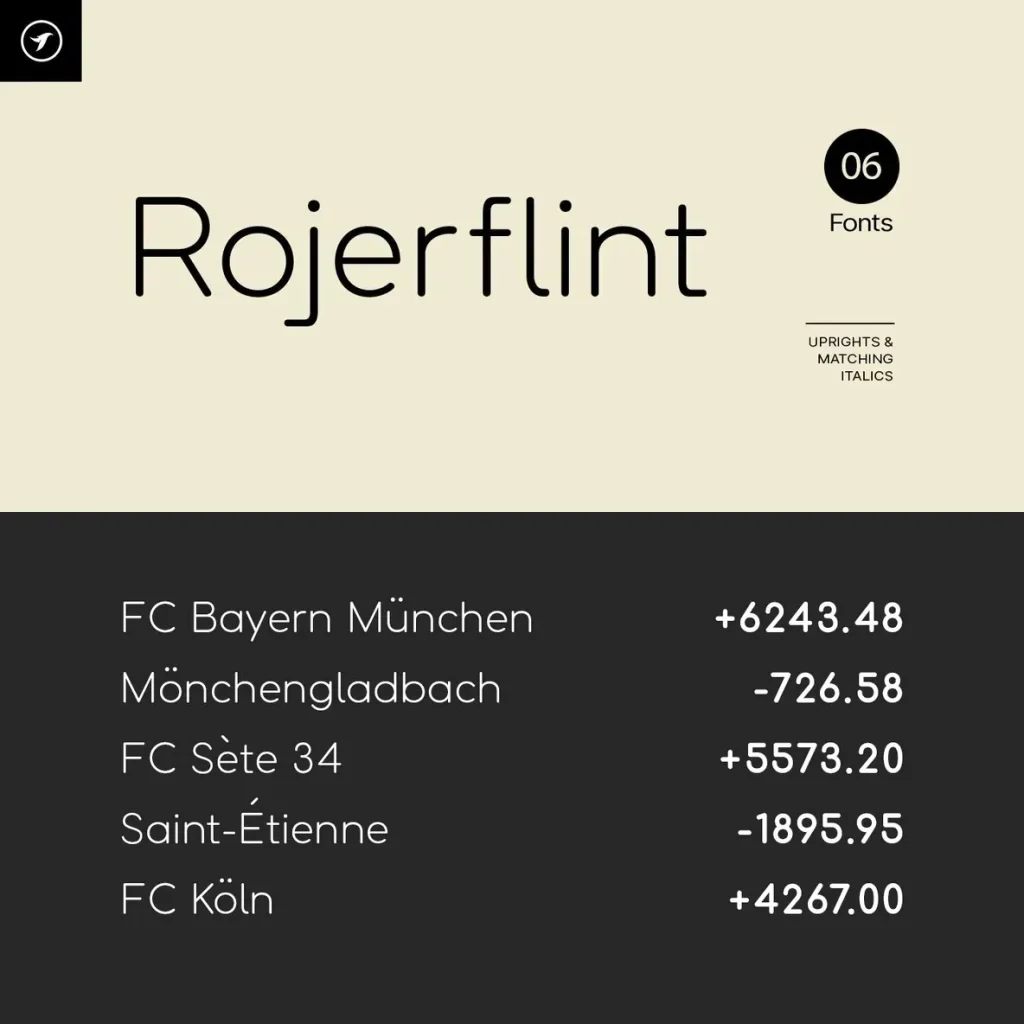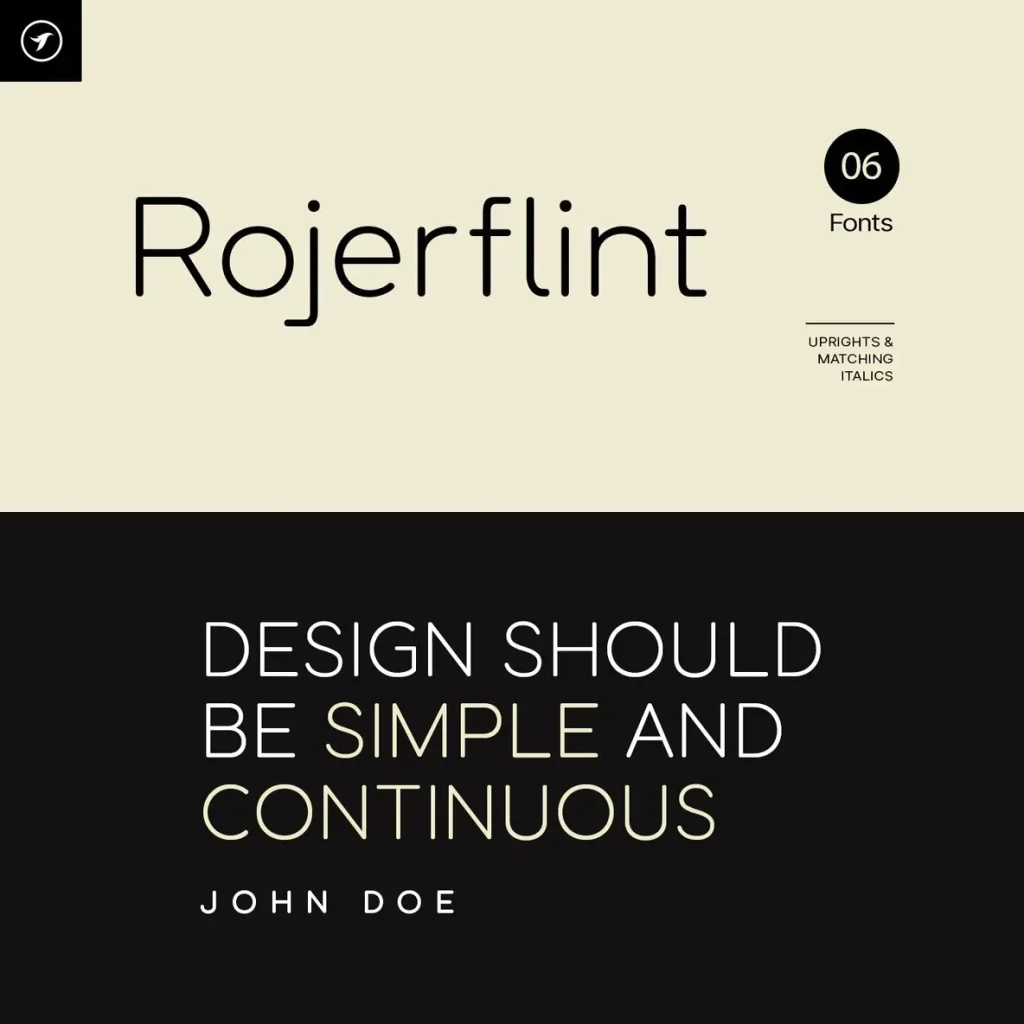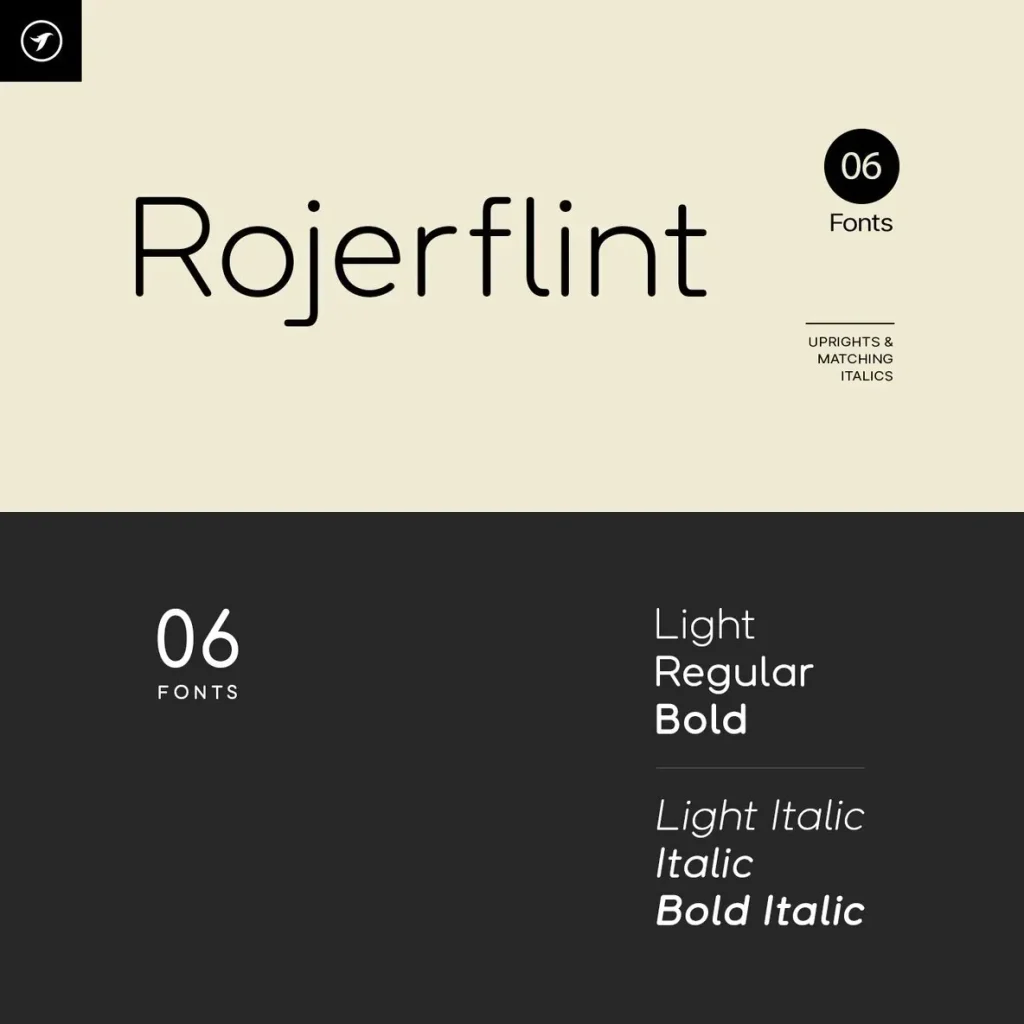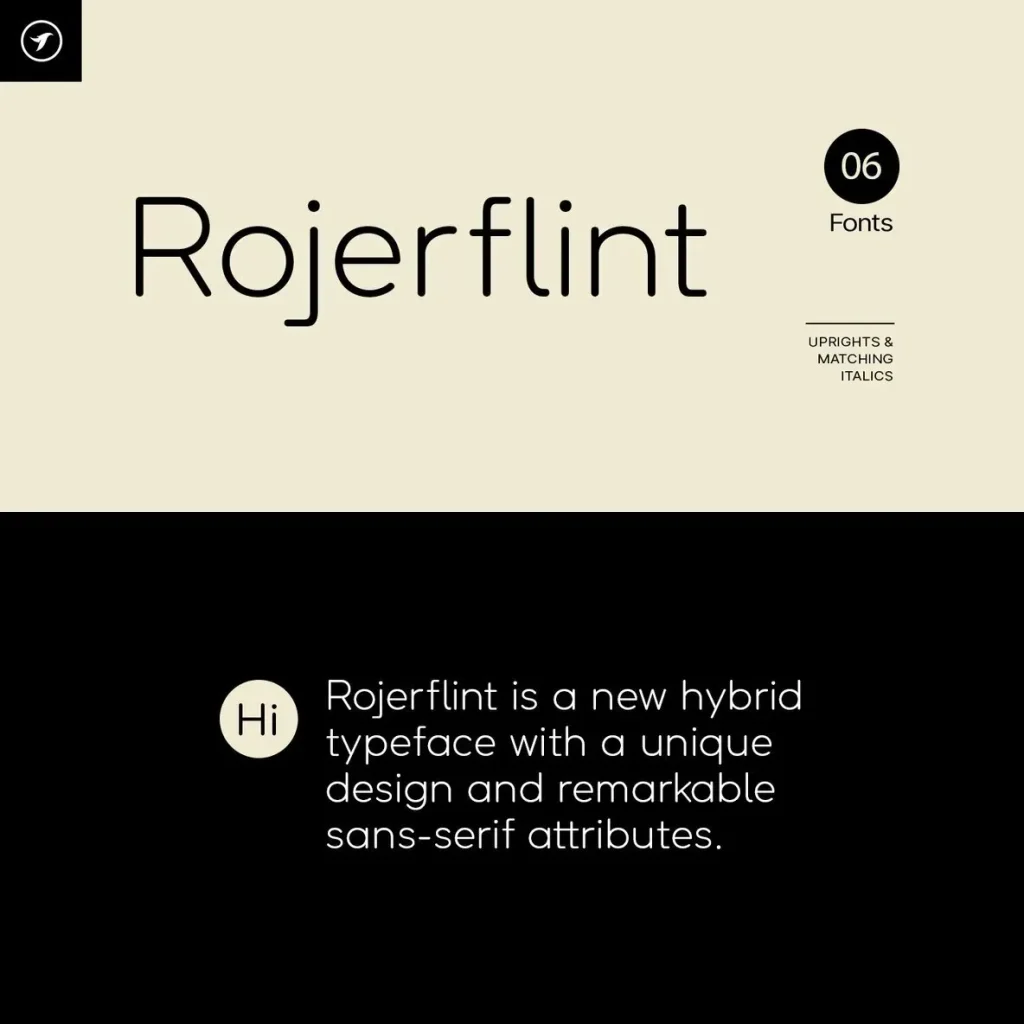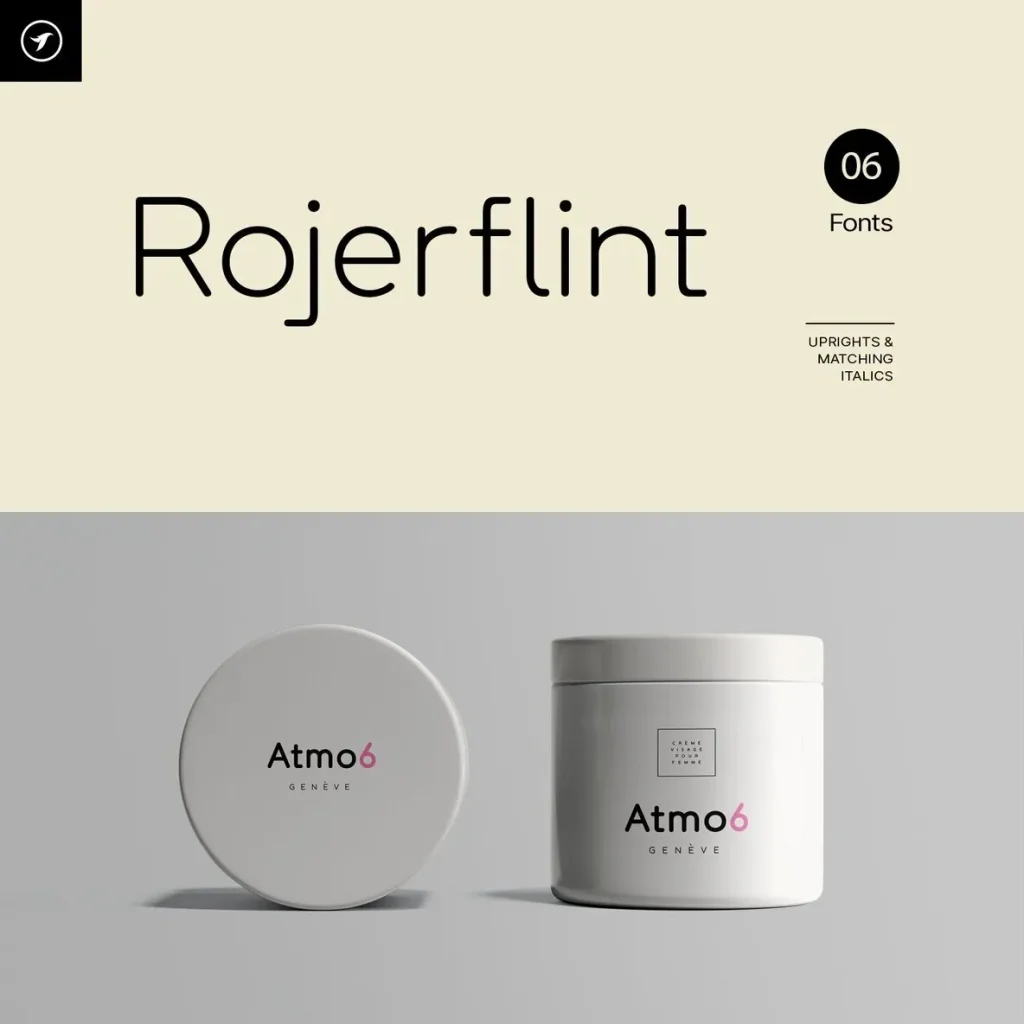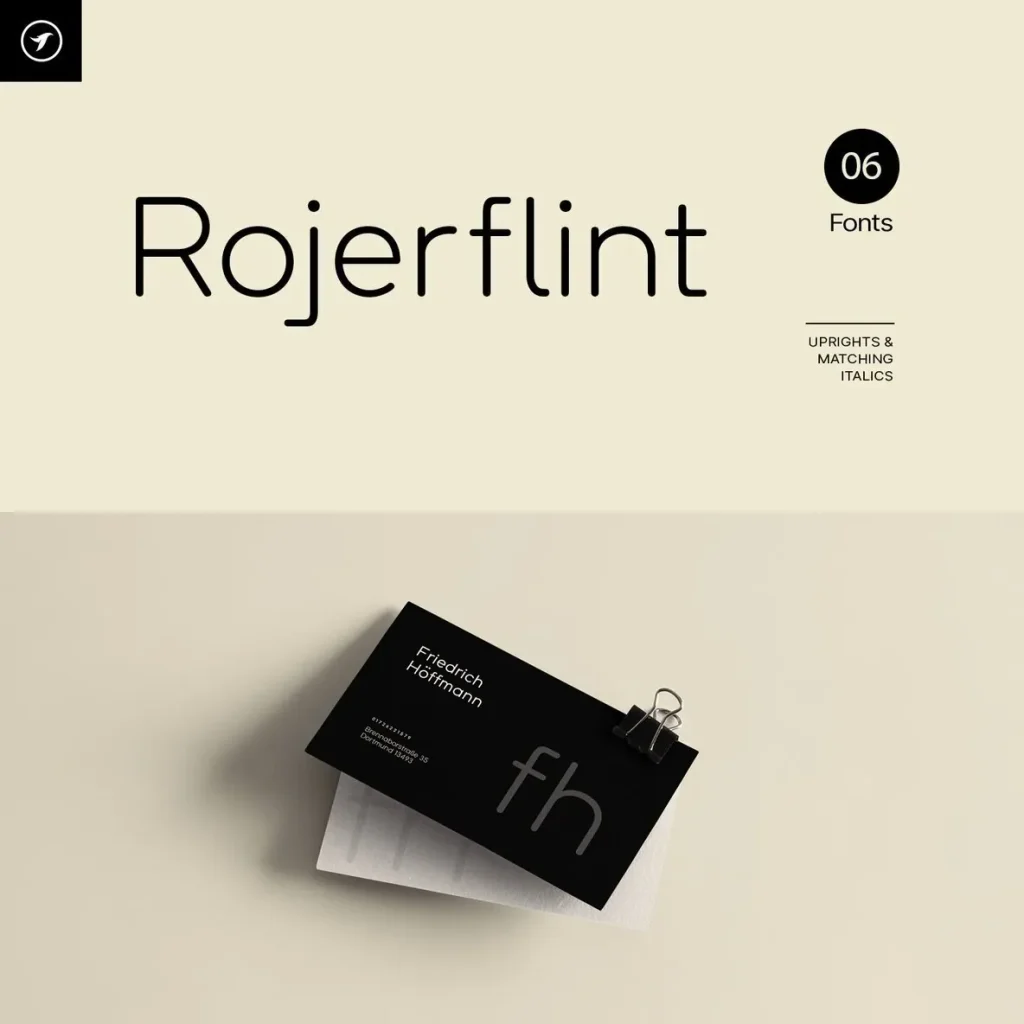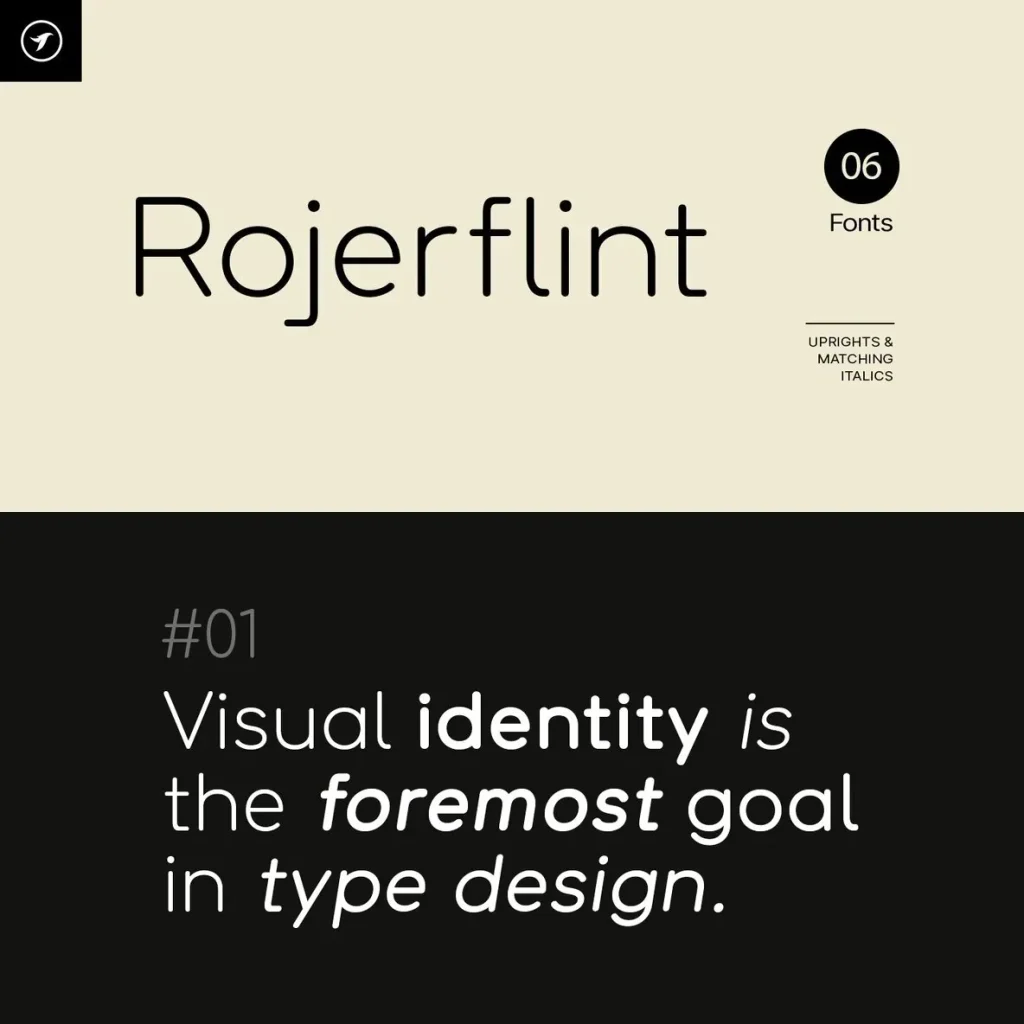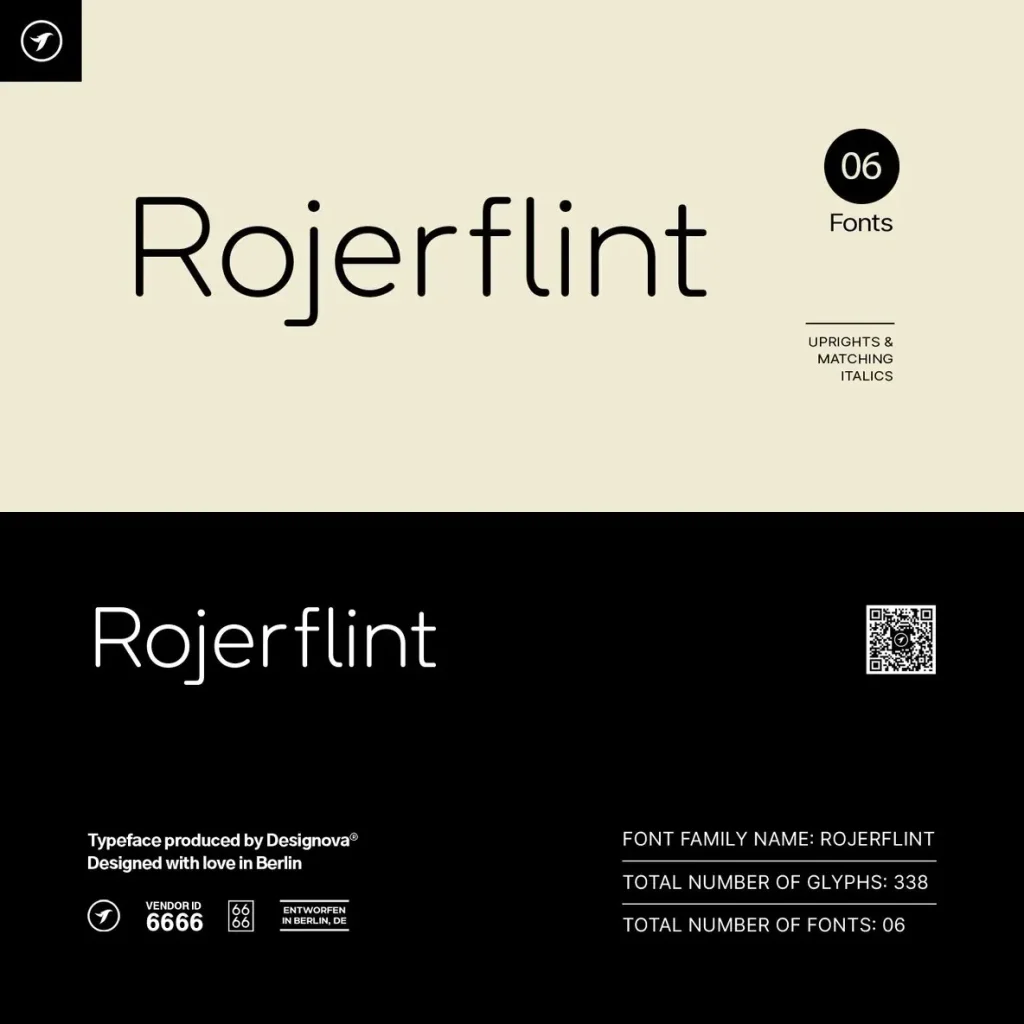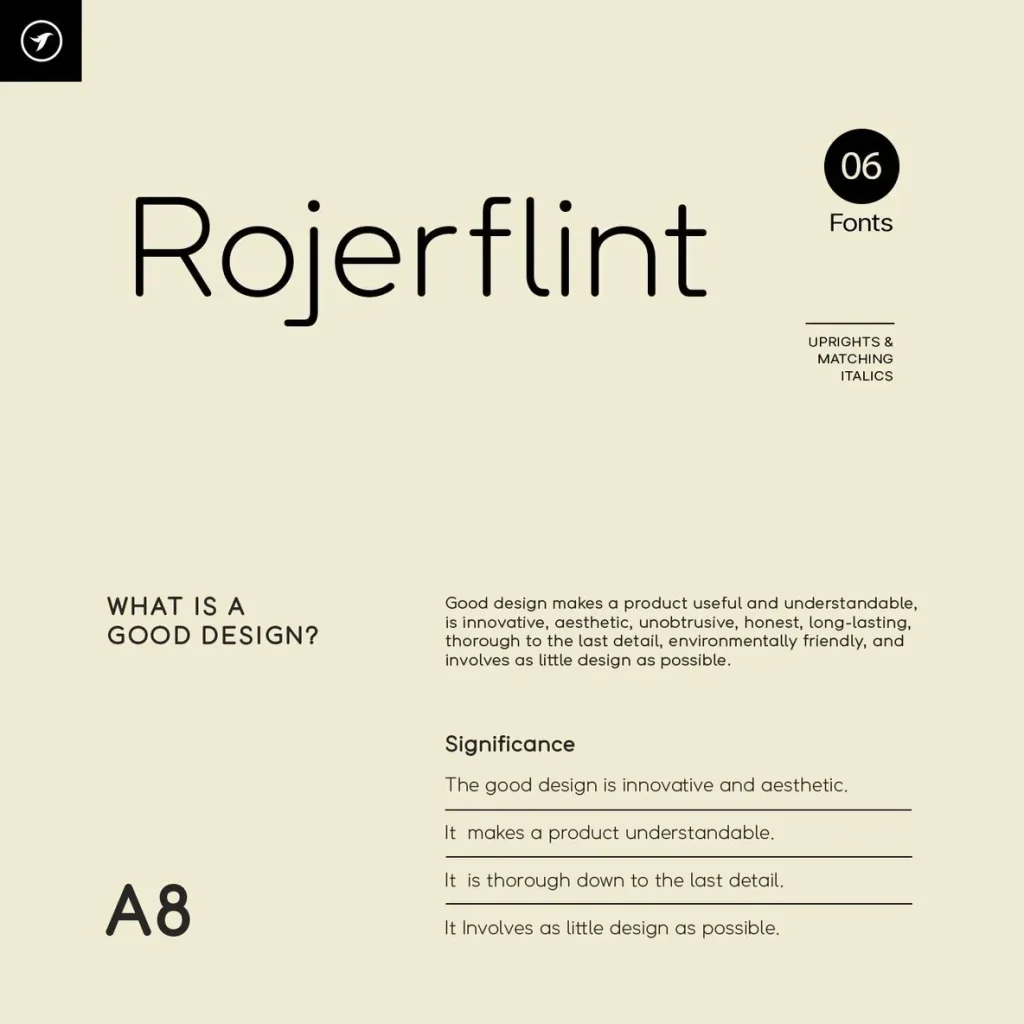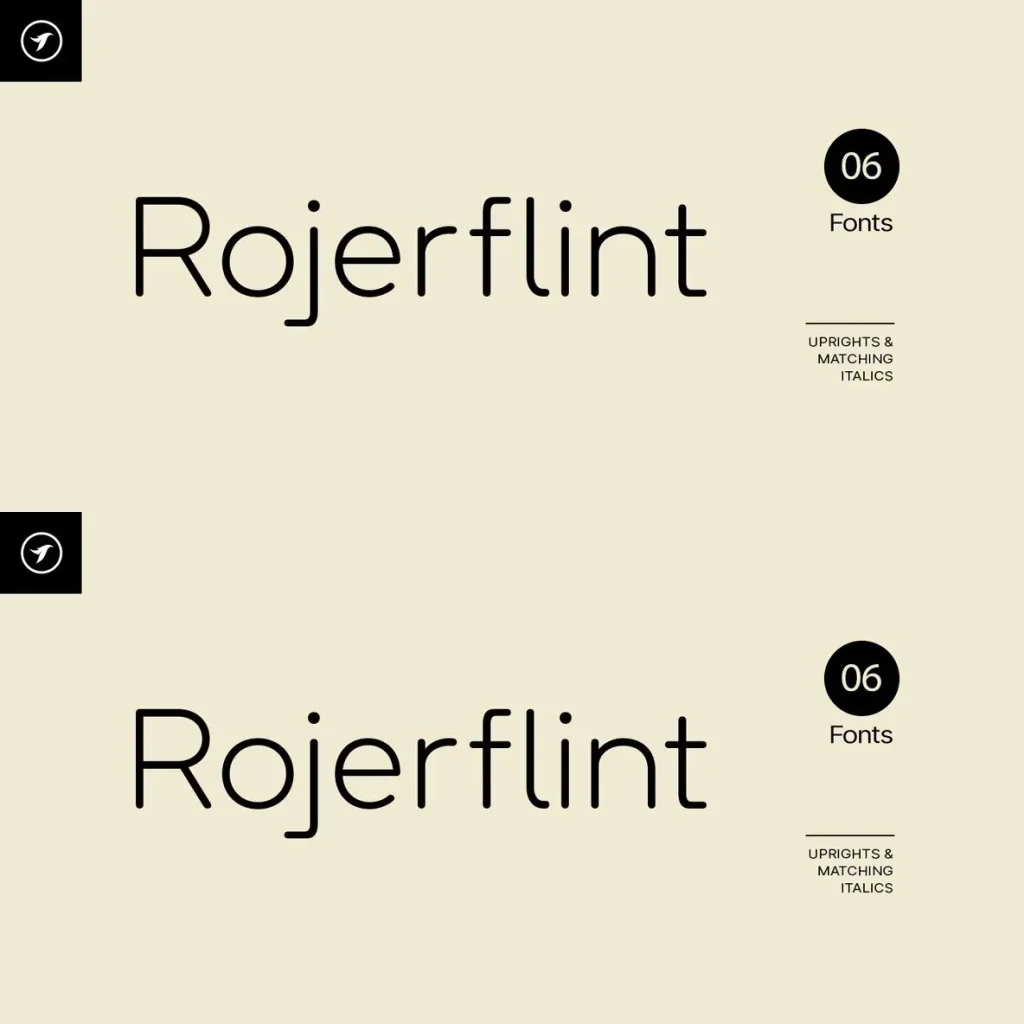
ROJERFLINT — Display With Sharp Character
ROJERFLINT is a unique display typeface family with distinctive forms, expressive details, and a strong contemporary personality. Its carefully developed structure gives text a memorable presence while keeping the typography adaptable across a range of creative applications.
Designed for work that needs a clear visual character, ROJERFLINT suits branding, posters, editorial projects, packaging, and visual identities. Its bold display nature helps headlines, names, and graphic compositions stand out with confidence and a refined sense of style.